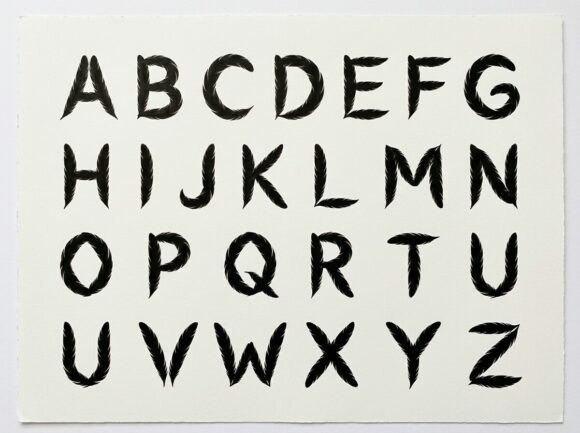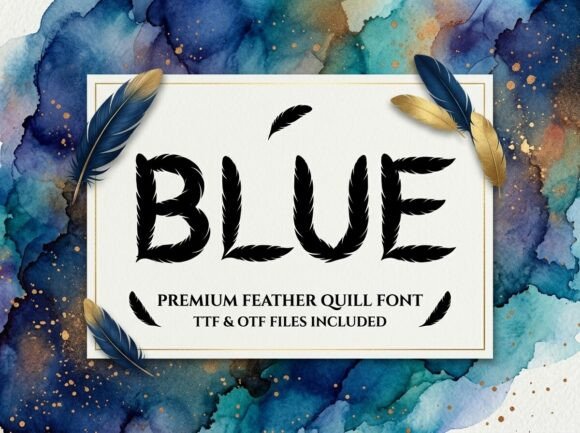
Introducing Blue Font: A Stunning Decorative Display Font
Are you tired of using the same old fonts for your designs? Do you want to add a touch of uniqueness and creativity to your work? Look no further than Blue Font, a decorative display font that is sure to turn heads. In this article, we’ll take a closer look at what makes Blue Font special and how it can elevate your designs.
Blue Font is a stunning decorative display font designed to be the center of attention. With its unique artistic elements and strong visual personality, this font is perfect for creators who want to break away from the ordinary. Whether you’re working on a bold headline, artistic logo, or creative packaging, Blue Font is versatile enough to make a lasting impression while maintaining a professional and polished finish.
⚠️ IMPORTANT NOTE BEFORE PURCHASE: Blue Font is an ALL-CAPS (Uppercase Only) display typeface. This means that it does not include lowercase letters. It is specifically designed for high-impact headlines, logos, and decorative initials where every letter is a work of art. This unique design approach allows for a level of detail and craftsmanship that would be impossible with traditional fonts that include both uppercase and lowercase letters.
Blue Font is perfect for designers and crafters who want to add a touch of elegance and sophistication to their work. With its unique artistic elements and strong visual personality, this font is ideal for:
- Bold Headlines – Use Blue Font to create eye-catching headlines that grab attention and make a lasting impression.
- Artistic Logos – Create unique and memorable logos that showcase your brand’s personality and style.
- Creative Packaging – Use Blue Font to add a touch of elegance and sophistication to your packaging designs.
Tips for Using Blue Font
Here are a few tips for getting the most out of Blue Font:
- Use it sparingly – Blue Font is a decorative display font, so use it sparingly to avoid overwhelming your design.
- Experiment with colors – Try pairing Blue Font with different colors to create a unique and eye-catching effect.
- Mix and match – Combine Blue Font with other fonts to create a unique and visually appealing design.
Blue Font is a stunning decorative display font that is sure to elevate your designs. With its unique artistic elements and strong visual personality, this font is perfect for creators who want to break away from the ordinary. Whether you’re working on a bold headline, artistic logo, or creative packaging, Blue Font is versatile enough to make a lasting impression while maintaining a professional and polished finish. So why wait? Get Blue Font today and take your designs to the next level!